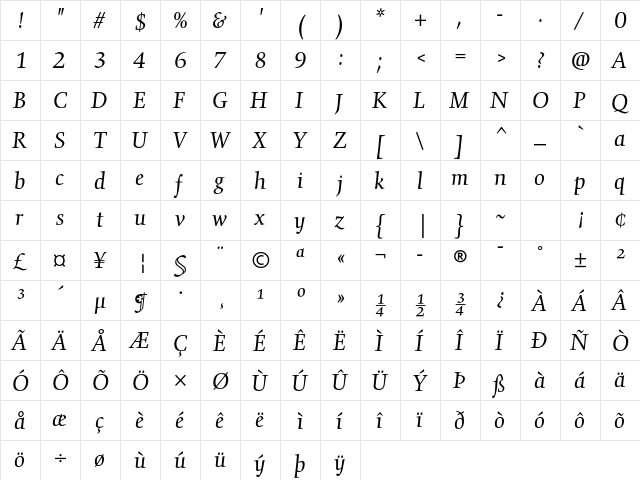
Gilgamesh Std Book Italic Font Preview
Gilgamesh Std Book Italic
| Designer | Michael Gills |
Design Context for Gilgamesh Std Typeface
Gilgamesh Std is a composed and adaptable typeface that performs quietly and consistently across a wide range of design contexts. The slanted form adds forward momentum and visual energy.
Pro Tip: Try Gilgamesh Std for annotation and caption copy alongside an upright companion — the contrast in angle creates a dynamic but ordered typographic system.